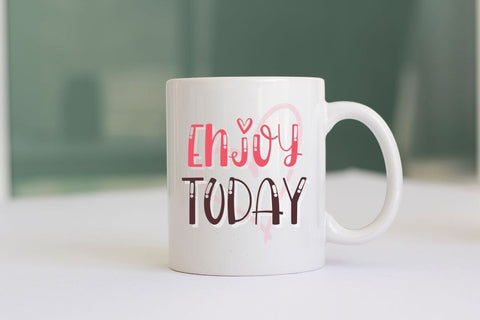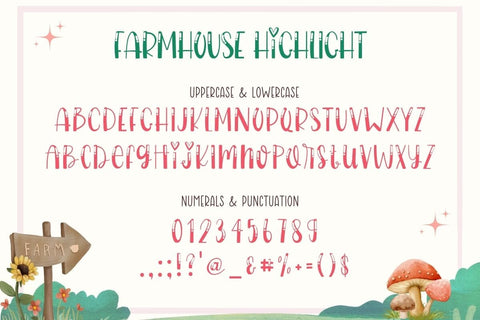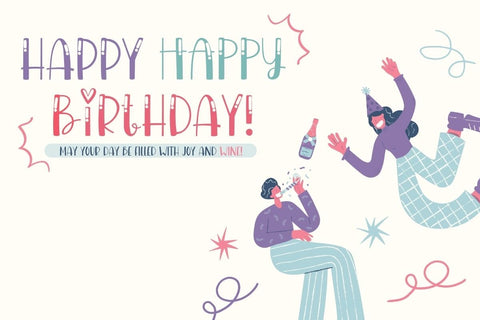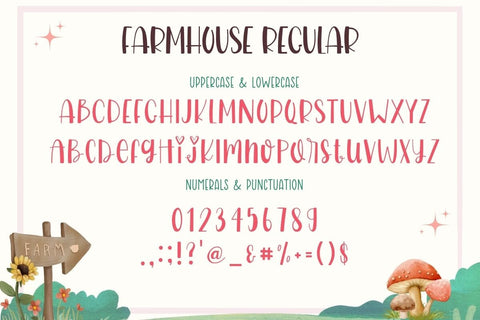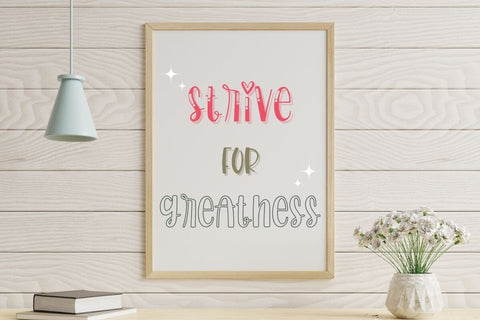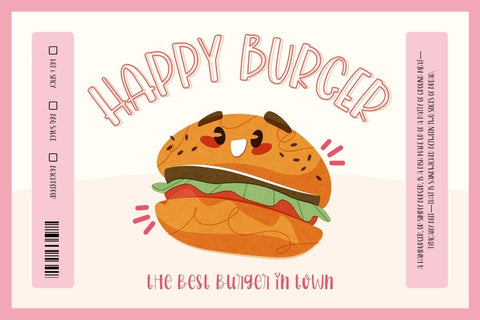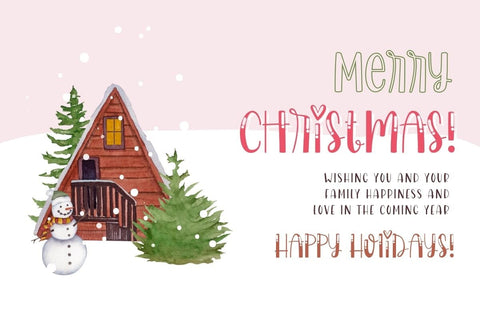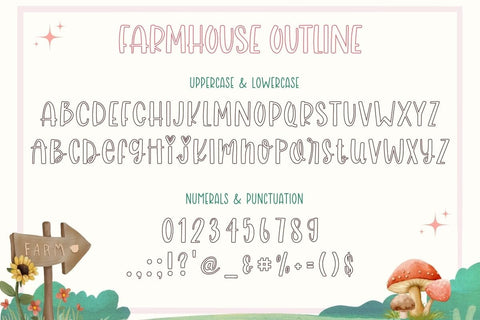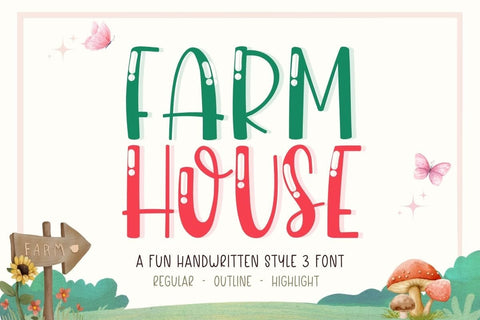
Farmhouse - Display Font
Farmhouse is a fun and bright handwritten display font. Its cute summery vibe and casual charm will help you create lovely designs. Use it for t-shirts, stickers, tote-bags, candy packaging, food menus, and more!